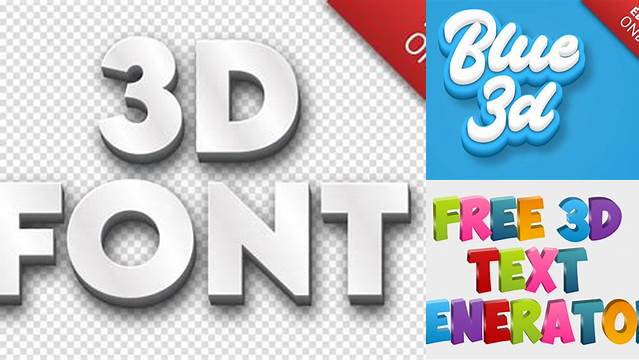
Free Online 3D Font Generator: Create Stunning Text!
Creating eye-catching 3D text has never been easier, thanks to the plethora of free online 3D font generators available. Whether you're a seasoned designer or just starting out, these tools offer a fantastic way to add depth and dimension to your projects. In this article, we'll explore the world of 3D font creation online, diving into various tools, techniques, and tips to help you craft stunning text that truly pops. Forget about complex software and expensive subscriptions; let's unleash your creativity with these accessible and user-friendly resources!
3D Text Generator Online: An Overview
When you're looking for a 3D text generator online, you're essentially seeking a tool that allows you to create text with a three-dimensional appearance. These generators often come with a range of customizable features, such as font styles, colors, textures, and lighting effects. The beauty of these online tools is that they eliminate the need for installing hefty software on your computer. All you need is a web browser and an internet connection to start designing. Many of these generators offer real-time previews, so you can see exactly how your text will look as you make changes. This makes the design process intuitive and efficient, allowing you to experiment with different styles and effects until you achieve the perfect result. Whether you're designing a logo, creating social media graphics, or adding a touch of flair to a presentation, a 3D text generator online can be an invaluable asset.
Free 3D Font Creation: Getting Started
Starting with free 3D font creation is surprisingly simple. Many online platforms offer basic tools that are completely free to use. To get started, simply visit one of these websites and look for the text input field. Type in your desired text, and then explore the various customization options. You'll typically find options to change the font style, size, color, and depth. Some generators also allow you to add textures or adjust the lighting to create different effects. Experiment with these settings to see how they affect the appearance of your text. Don't be afraid to try different combinations until you find a style that you like. Remember, the goal is to create text that stands out and captures attention. Once you're happy with your design, most free 3D font creation tools will allow you to download your text as an image or vector file. This makes it easy to incorporate your 3D text into other projects.
Best Online 3D Font Tools: Our Top Picks
Navigating the world of best online 3D font tools can be overwhelming, given the sheer number of options available. However, some tools consistently stand out due to their ease of use, range of features, and quality of output. One popular choice is FlamingText, which offers a wide variety of pre-designed templates that you can customize to your liking. Another great option is 3D Text Maker, which allows you to create realistic-looking 3D text with customizable lighting and shadows. For those who want more control over the design process, Vectary is a powerful online 3D design tool that offers advanced features like modeling and animation. Ultimately, the best online 3D font tools for you will depend on your specific needs and preferences. Consider factors such as ease of use, available features, and the type of output you need when making your decision.
Creating 3D Logos Online: A Step-by-Step Guide
Creating 3D logos online is a fantastic way to give your brand a modern and professional look. The first step is to choose a 3D font generator that offers the features you need. Look for a tool that allows you to customize the font style, color, and depth, as well as add textures and lighting effects. Once you've found a suitable generator, start by typing in your brand name or initials. Experiment with different font styles until you find one that reflects your brand's personality. Next, customize the color and depth of your text to create a visually appealing effect. Consider adding a subtle texture or gradient to make your logo stand out. Finally, adjust the lighting to create highlights and shadows that add depth and dimension. Once you're happy with your design, download your logo in a high-resolution format. You can then use your 3D logos online on your website, social media profiles, and marketing materials.
Free 3D Text Effects: Adding Flair to Your Designs
One of the best things about using online 3D font generators is the ability to add free 3D text effects to your designs. These effects can range from simple shadows and highlights to more complex textures and animations. Experiment with different effects to see how they can enhance the appearance of your text. For example, adding a subtle shadow can create the illusion of depth, while applying a metallic texture can give your text a sleek and modern look. You can also use lighting effects to create highlights and shadows that add dimension and interest. Some generators even offer animated effects, such as rotating or pulsating text. These effects can be a great way to grab attention and make your designs more engaging. With so many free 3D text effects available, the possibilities are endless.
3D Font Design Software: When to Upgrade
While 3D font design software offers more advanced features and flexibility than online generators, it also comes with a steeper learning curve and a higher price tag. If you're serious about creating professional-quality 3D text, investing in design software may be worth considering. Software like Adobe Photoshop and Cinema 4D offer a wide range of tools for creating complex 3D designs, including advanced modeling, texturing, and animation capabilities. However, if you're just starting out or only need to create simple 3D text effects, online generators are a great option. They're easy to use, affordable, and can still produce impressive results. The decision of when to upgrade to 3D font design software depends on your specific needs and budget.
3D Font Styles: Exploring the Possibilities
The world of 3D font styles is vast and diverse, offering endless possibilities for creating unique and eye-catching text. From classic serif fonts to modern sans-serif fonts, there's a 3D font style to suit every project. Experiment with different styles to see how they affect the overall appearance of your text. For example, a bold, blocky font can convey strength and power, while a delicate, script font can evoke elegance and sophistication. Consider the message you want to communicate and choose a font style that reflects that message. You can also combine different font styles to create a more dynamic and interesting effect. With so many 3D font styles to choose from, the only limit is your imagination.
3D Text Animation Online: Bringing Your Words to Life
3D text animation online is a fantastic way to add movement and dynamism to your designs. Animated text can grab attention, convey emotion, and make your message more memorable. Many online 3D font generators offer animation features, allowing you to create simple animations like rotating or pulsating text. For more complex animations, you may need to use dedicated animation software. However, even simple animations can make a big impact. Consider using animated text in your social media videos, website banners, or email newsletters. Just be sure to use animations sparingly and avoid overwhelming your audience. When used effectively, 3D text animation online can be a powerful tool for engaging your audience and conveying your message.
3D Font Generator for PC: Offline Options
While 3D font generator for PC are less convenient than online tools, they offer the advantage of being able to work offline. This can be useful if you have a slow or unreliable internet connection. There are many different 3D font generators available for PC, ranging from free open-source programs to expensive commercial software. Some popular options include Blender, FontForge, and Xara 3D Maker. These programs offer a wide range of features for creating and editing 3D fonts, including advanced modeling, texturing, and animation capabilities. However, they also come with a steeper learning curve than online generators. If you're serious about creating professional-quality 3D fonts, investing in a 3D font generator for PC may be worth considering.
3D Writing Generator: Transforming Text into Art
Transform your ordinary text into extraordinary art with a 3D writing generator! These tools let you take simple words and phrases and give them depth, dimension, and visual appeal. Whether you're crafting eye-catching headlines, designing unique logos, or simply adding a touch of flair to your social media posts, a 3D writing generator can help you achieve stunning results. The best part? Many of these generators are available online and completely free to use, making it easy for anyone to create professional-looking 3D text without any special software or design skills. So go ahead, unleash your creativity and turn your words into works of art with a 3D writing generator.
Free Online 3D Text Creator: Quick and Easy Designs
Need to create a stunning 3D text design in a hurry? Look no further than a free online 3D text creator! These tools are designed to be quick, easy, and user-friendly, allowing you to generate impressive 3D text effects in just minutes. Simply type in your desired text, choose from a variety of fonts and styles, customize the colors and textures, and voila – you have a professional-looking 3D text design ready to be used in your projects. With no software to download or install, these online creators are perfect for anyone who wants to add a touch of depth and dimension to their designs without any hassle. So why wait? Start creating your own free online 3D text designs today!
3D Name Generator: Personalize Your Creations
Make your designs truly unique with a 3D name generator! These tools allow you to create personalized 3D text designs featuring your name or any other word or phrase you desire. Whether you're designing a custom logo, creating a personalized gift, or simply want to add a personal touch to your designs, a 3D name generator can help you achieve the perfect look. With a wide range of fonts, styles, and customization options to choose from, you can create a 3D name design that perfectly reflects your personality and style. Plus, many of these generators are available online and completely free to use, making it easy for anyone to create stunning 3D name designs in minutes.
Animated 3D Text Generator: Dynamic Visuals
Bring your text to life with an animated 3D text generator! These tools allow you to create dynamic and eye-catching 3D text animations that are sure to grab attention. Whether you're designing a website banner, creating a social media video, or simply want to add some flair to your presentations, animated 3D text can help you make a lasting impression. With a variety of animation styles and customization options to choose from, you can create animations that perfectly match your brand and message. Plus, many of these generators are available online and easy to use, making it simple for anyone to create professional-looking animated 3D text designs.
3D Font Maker Online: Craft Your Own Typefaces
Unleash your inner typographer with a 3D font maker online! These tools allow you to design and create your own unique 3D typefaces from scratch. Whether you're a professional designer or simply a font enthusiast, a 3D font maker can help you bring your creative visions to life. With a variety of tools and features to choose from, you can customize every aspect of your fonts, from the shape and size of the letters to the depth and texture of the 3D effects. Plus, many of these makers are available online and easy to use, making it simple for anyone to create professional-quality 3D fonts.
3D Logo Maker: Design a Standout Brand
Create a logo that truly stands out with a 3D logo maker! These tools allow you to design stunning 3D logos that will help your brand make a lasting impression. Whether you're launching a new business or rebranding an existing one, a 3D logo can help you communicate your brand's personality and values in a visually compelling way. With a wide range of templates, fonts, and customization options to choose from, you can create a logo that perfectly reflects your brand's identity. Plus, many of these makers are available online and easy to use, making it simple for anyone to design a professional-quality 3D logo.
3D Text Effect Generator: Transform Your Words
Instantly transform your ordinary text into extraordinary visuals with a 3D text effect generator! These tools allow you to add a wide range of eye-catching 3D effects to your text, from subtle shadows and highlights to bold textures and distortions. Whether you're designing a poster, creating a social media graphic, or simply want to add some flair to your documents, a 3D text effect generator can help you achieve the perfect look. With a variety of effects and customization options to choose from, you can create text that truly pops. Plus, many of these generators are available online and easy to use, making it simple for anyone to create stunning 3D text effects.
3D Graphic Design: Elevate Your Visuals
Take your graphic design to the next level with 3D graphic design! Incorporating 3D elements into your designs can add depth, dimension, and visual interest, making them more engaging and impactful. Whether you're designing a website, creating a brochure, or developing a marketing campaign, 3D graphic design can help you communicate your message more effectively. With a variety of software and online tools available, it's easier than ever to create stunning 3D graphics that will set your designs apart. So why settle for flat, two-dimensional designs when you can elevate your visuals with 3D graphic design?
3D Font Creator App: Mobile Design Power
Design on the go with a 3D font creator app! These mobile apps allow you to create stunning 3D text designs directly from your smartphone or tablet. Whether you're commuting to work, waiting in line, or simply relaxing at home, you can now create professional-looking 3D text designs anytime, anywhere. With a variety of fonts, styles, and customization options to choose from, you can create designs that perfectly match your needs and preferences. Plus, many of these apps are free to download and easy to use, making it simple for anyone to create amazing 3D fonts on their mobile devices.
3D Typography: The Art of Dimensional Text
Explore the art of 3D typography, where text transcends the flat page and takes on a life of its own in three dimensions! 3D typography combines the principles of traditional typography with the added element of depth, creating visually stunning and engaging designs. Whether you're creating logos, posters, or website headers, 3D typography can help you make a statement and capture attention. From subtle extrusions to bold, sculptural forms, the possibilities are endless when you unleash your creativity in the world of 3D typography.
3D Text Generator Software: Professional Tools
For serious designers who need maximum control and flexibility, 3D text generator software offers a suite of professional tools for creating stunning 3D typography. These software packages typically provide advanced features such as custom font creation, realistic rendering, and animation capabilities. While they may come with a steeper learning curve and a higher price tag than online generators, the level of control and quality they offer is unmatched. If you're looking to create truly unique and professional-grade 3D text designs, investing in dedicated 3D text generator software is a worthwhile investment.
Online 3D Text Effects: Fast and Easy Transformations
Transform your ordinary text into captivating visuals in seconds with online 3D text effects! These web-based tools offer a quick and easy way to add depth, dimension, and style to your text without the need for complex software or design skills. Simply upload your text, choose from a variety of pre-designed 3D effects, and customize the colors, textures, and lighting to your liking. In just a few clicks, you can create eye-catching 3D text effects that will enhance your designs and grab attention.
3D Font Maker: Create Custom Typefaces
Unleash your inner typographer and create your own custom typefaces with a 3D font maker! These tools provide the ability to design and generate unique 3D fonts from scratch, giving you complete control over every aspect of the font's appearance, from the shape and size of the letters to the depth and texture of the 3D effects. Whether you're a professional designer looking to expand your font library or a hobbyist experimenting with typography, a 3D font maker can help you bring your creative visions to life.
3D Text Creator: Transform Words into Art
Transform your ordinary words into extraordinary works of art with a 3D text creator! These tools empower you to create stunning 3D text designs that will add depth, dimension, and visual appeal to your projects. Whether you're designing logos, posters, or social media graphics, a 3D text creator can help you make a statement and capture attention. With a wide range of fonts, styles, and customization options to choose from, you can create text that truly pops and reflects your unique personality and brand. So unleash your creativity and turn your words into art with a 3D text creator!
3D Logo Design Software: Professional Branding
Craft a professional brand identity with the help of dedicated 3D logo design software. These tools provide a comprehensive set of features for creating visually stunning logos that incorporate 3D elements, helping your brand stand out from the competition. From intricate modeling tools to advanced rendering capabilities, 3D logo design software offers everything you need to create a logo that is both visually appealing and representative of your brand's values and personality. If you're serious about creating a lasting brand impression, investing in 3D logo design software is a worthwhile investment.
3D Text Design: Elevate Your Visuals
Elevate your visuals and add a touch of sophistication to your designs with 3D text design. Incorporating 3D text into your projects can add depth, dimension, and visual interest, making them more engaging and impactful. Whether you're designing websites, brochures, or marketing materials, 3D text design can help you communicate your message more effectively and create a lasting impression on your audience. With a variety of software and online tools available, it's easier than ever to incorporate stunning 3D text designs into your projects.
3D Font Generator Online Free No Download: Instant Access
Enjoy instant access to stunning 3D fonts with an 3D font generator online free no download! These web-based tools offer a hassle-free way to create 3D text designs without the need to download or install any software. Simply visit the website, type in your text, choose from a variety of fonts and styles, and customize the colors and textures to your liking. In just a few clicks, you can generate professional-looking 3D fonts that are ready to be used in your projects.
3D Text Styles Online: Diverse Options
Discover a world of diverse options with 3D text styles online! These web-based tools offer a vast library of pre-designed 3D text styles that you can easily customize to your liking. From classic fonts with subtle extrusions to modern designs with bold textures and lighting effects, you'll find a 3D text style to suit every project. Simply browse the library, select a style that catches your eye, and customize the colors, text, and other details to create a unique and eye-catching 3D text design.
Create 3D Text Online: A Simplified Process
Simplify your design process and create 3D text online with user-friendly web-based tools! These platforms offer an intuitive interface that makes it easy for anyone to generate stunning 3D text designs, regardless of their design experience. Simply type in your text, choose from a variety of fonts and styles, and customize the colors, textures, and lighting to your liking. With real-time previews and drag-and-drop functionality, creating 3D text online is a breeze.
3D Effect Generator Online: Add Depth to Text
Add depth and dimension to your text with a 3D effect generator online! These tools provide a simple and effective way to create stunning 3D text effects that will make your designs stand out. Whether you're creating logos, posters, or social media graphics, a 3D effect generator can help you add a touch of professionalism and visual interest to your projects. With a variety of effects and customization options to choose from, you can easily create text that pops and captures attention. Plus, these generators are available online, making it simple for anyone to create amazing 3D text effects.
3D Text Creator Free: Unleash Creativity Without Cost
Unleash your creativity without breaking the bank using a free 3D text creator! These tools provide access to create 3D text designs without paying any fees. Ideal for hobbyists, students, or designers on a budget, a free 3D text creator allows you to explore the world of 3D typography and add a professional touch to your projects without spending a dime. With user-friendly interfaces and various customization options, it's easier to achieve stunning results while keeping your costs down. This tool allows you to easily create amazing 3D text.